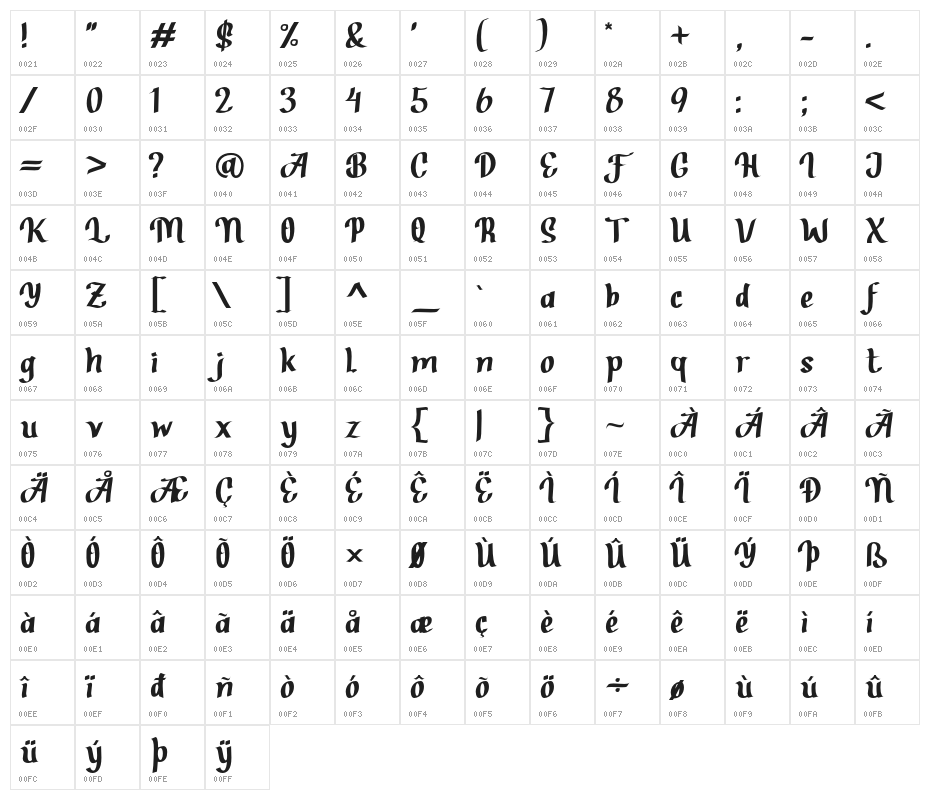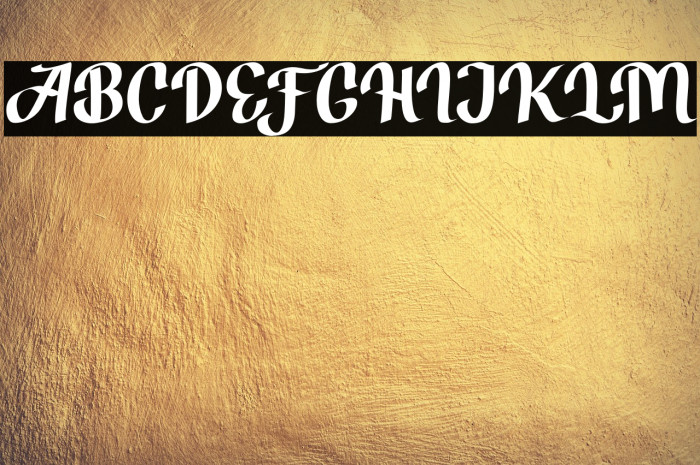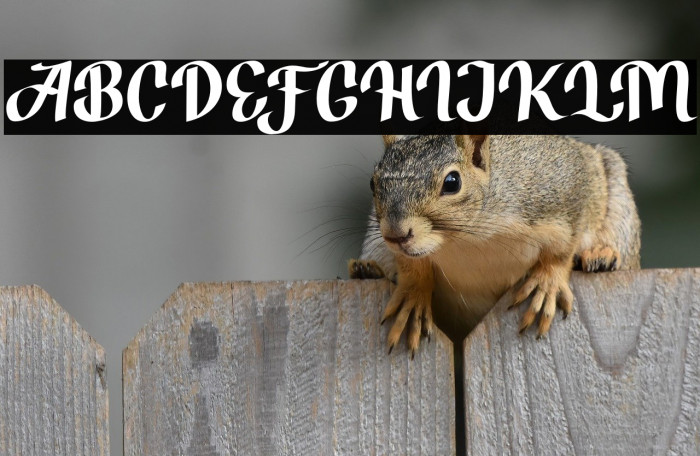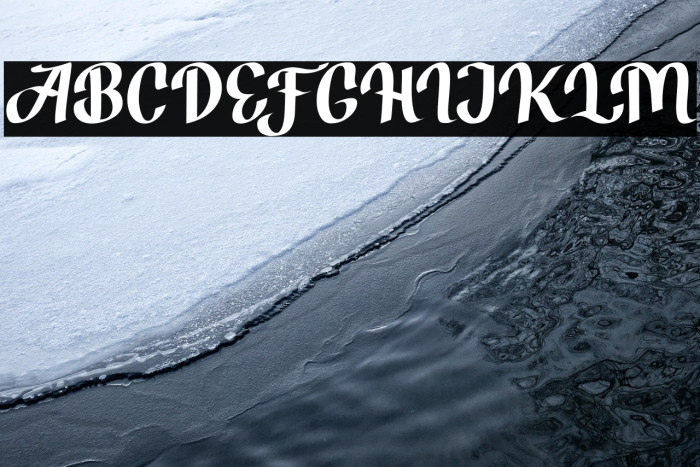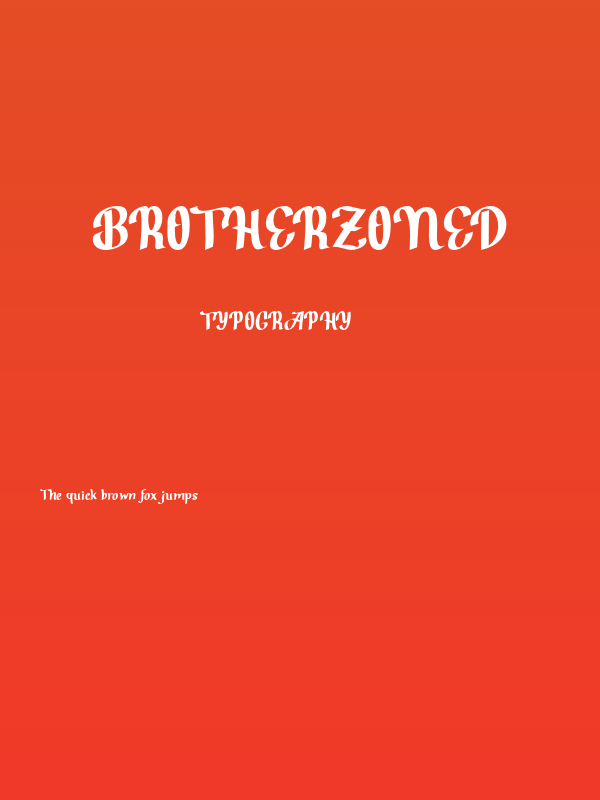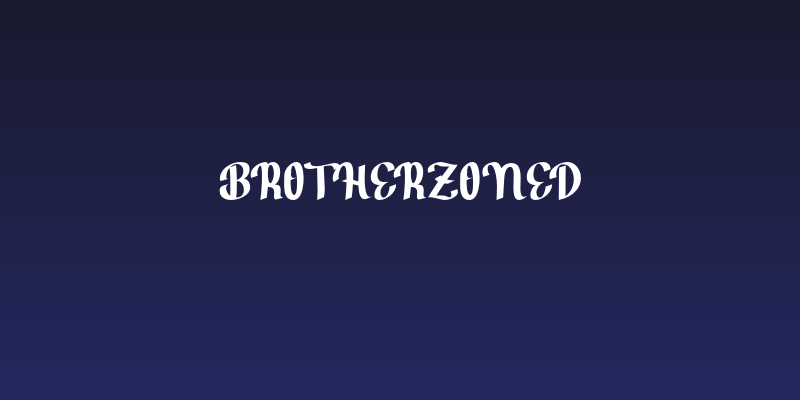
BrotherZoned Font
BrotherZoned Description
This font features a bold and dynamic script style with a strong presence. The characters are crafted with a flowing, cursive design that gives a sense of movement and energy. The uppercase letters are particularly striking, with exaggerated curves and loops that add a decorative flair. The lowercase letters maintain a consistent style, offering a harmonious blend with the uppercase. Numbers and special characters are designed to match the overall aesthetic, ensuring a cohesive look across all text. The font's bold strokes and unique character shapes make it ideal for attention-grabbing designs.
| Proposed Projects | Ideal for branding, logos, posters, and any design requiring a bold, artistic touch. |